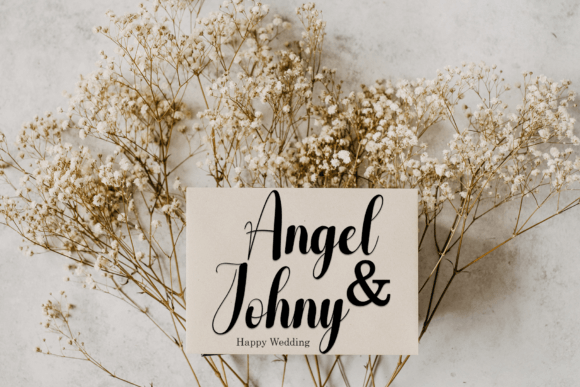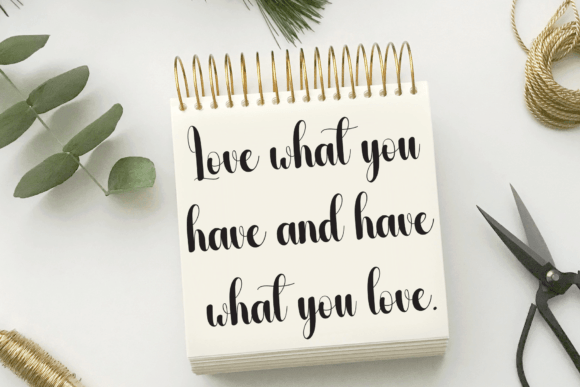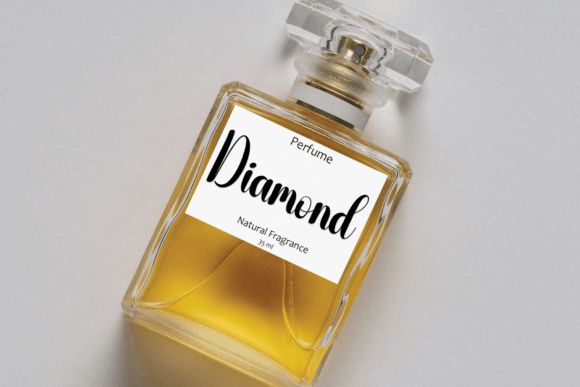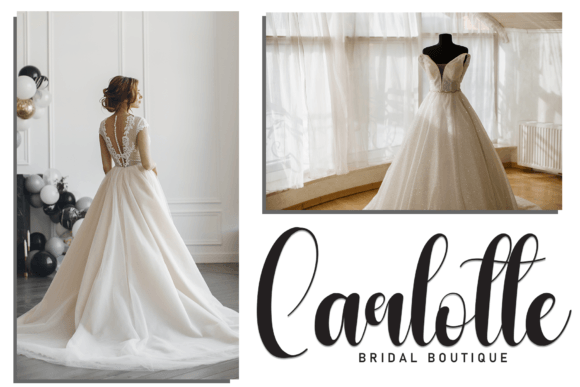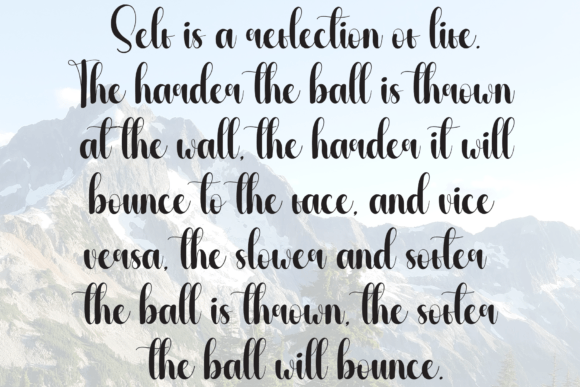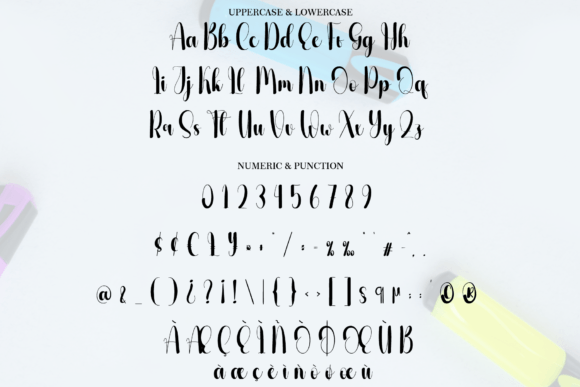
Introduction to Highligher Font
As a designer, have you ever been working on a creative project and wished you had the perfect font to give it that extra special touch? For me, it’s those moments when I’m brainstorming ideas for a wedding invitation or a birthday card that I wish I had a font that was both elegant and approachable. That’s when I discovered the Highligher Font – a sweet and friendly handwritten font that instantly adds a lovely touch to any design.
Whether you’re looking for a design resource that’s free to download or something to give your project a personal and high-quality feel, the Highligher Font is an excellent choice. With its fresh and casual vibe, it’s perfect for a wide range of creative projects, from cards to wedding invitations, and even designs with transparent backgrounds.
Key Features of Highligher Font
- High-Quality Typography: The font features high-quality typography with crisp lines and smooth curves, making it ideal for print and digital use.
Honest Review: Highligher Font
- The Highligher Font is highly legible, making it perfect for use in various design contexts.
- The font’s clean and minimalist design makes it a great addition to any creative project.
- The font is limited in its style and expressiveness, which may not appeal to designers seeking more unique options.
Overall, I think the Highligher Font is a solid choice for designers working on projects that require a clean and simple aesthetic. While it may not be the most exciting or unique font, it’s a reliable option that can add a touch of professionalism to any design.
Tips for Getting the Most Out of Highligher Font